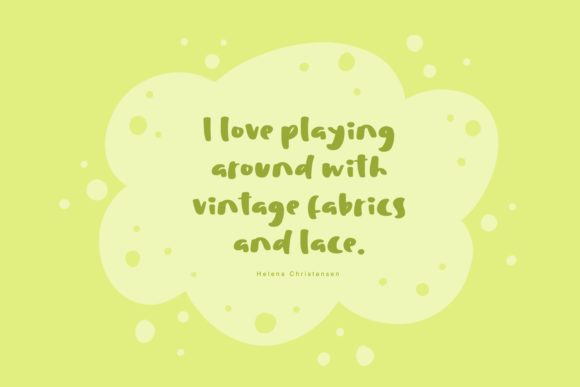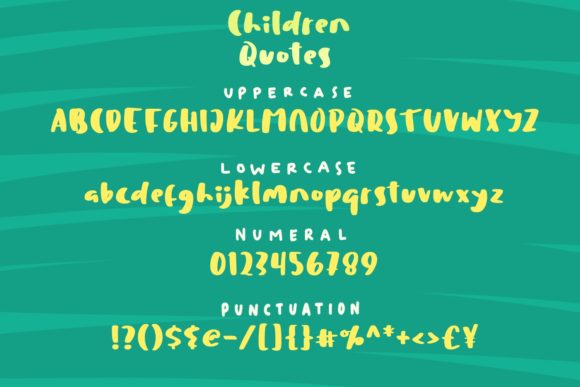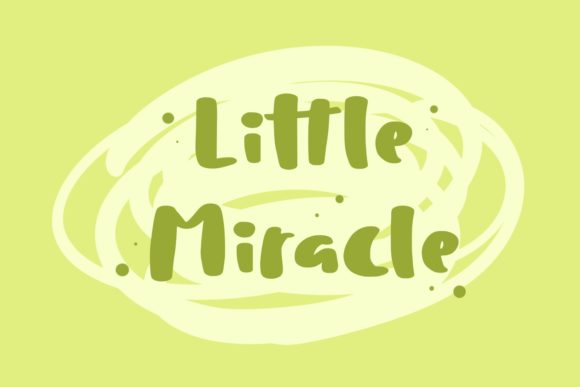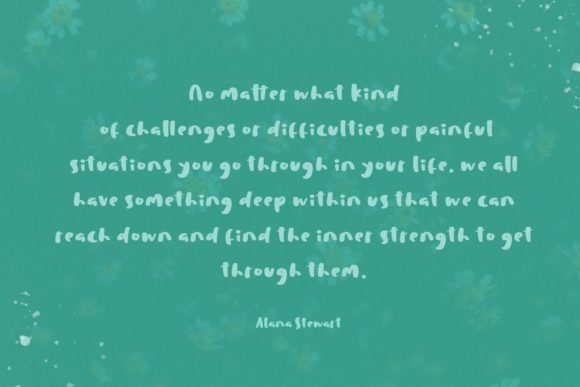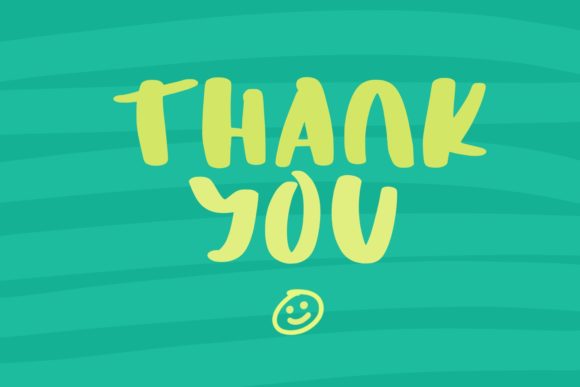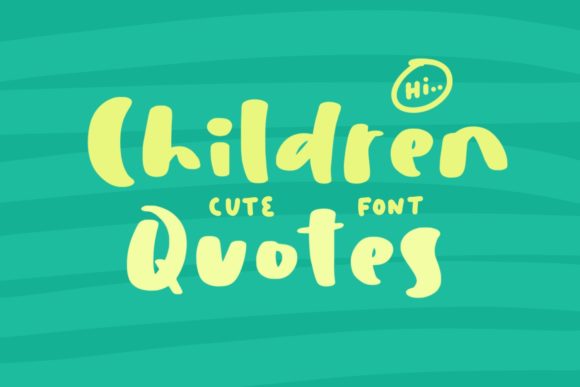
Introducing Children Quotes Font: The Perfect Addition to Your Kids’ Projects
Are you a designer, crafter, or parent looking for a font that captures the essence of childhood? Look no further than the Children Quotes Font! This bold and cute handwritten font is designed to bring a touch of childlike playfulness to any project, making it perfect for kids and school projects.
What is Children Quotes Font?
Children Quotes Font is a unique and charming handwritten font that is sure to delight kids and adults alike. Its bold and playful design makes it perfect for a variety of projects, from school assignments and crafts to posters and presentations.
Key Features of Children Quotes Font
- Bold and Cute Design: The Children Quotes Font features a bold and cute design that is sure to grab attention.
- Handwritten Style: The font’s handwritten style gives it a personal and playful touch.
- Childlike Playfulness: The font’s childlike playfulness makes it perfect for kids and school projects.
- Easy to Read: Despite its playful design, the font is easy to read, making it perfect for projects that require a clear and concise message.
Uses of Children Quotes Font
The Children Quotes Font is versatile and can be used for a variety of projects, including:
- Kids’ School Projects: The font is perfect for school projects, such as posters, presentations, and reports.
- Crafts and DIY Projects: The font can be used for a variety of craft and DIY projects, such as making cards, gift tags, and other handmade items.
- Posters and Flyers: The font’s bold design makes it perfect for creating eye-catching posters and flyers.
- Digital Projects: The font can be used for digital projects, such as creating social media graphics, blog posts, and website content.
Benefits of Using Children Quotes Font
Using the Children Quotes Font can have several benefits, including:
- Adds a Personal Touch: The font’s handwritten style adds a personal touch to any project.
- Makes Projects More Engaging: The font’s playful design makes projects more engaging and fun to work on.
- Versatile: The font can be used for a variety of projects, making it a great addition to any design or crafting toolkit.
Tips for Using Children Quotes Font
Here are some tips for using the Children Quotes Font:
- Use it for Headings: The font’s bold design makes it perfect for headings and titles.
- Mix it with Other Fonts: The font can be paired with other fonts to create a unique and interesting design.
- Experiment with Colors: The font can be used with a variety of colors to create a fun and playful design.
- Have Fun: The most important thing is to have fun and be creative with the font!
The Children Quotes Font is a unique and charming font that is perfect for kids and school projects. Its bold and cute design makes it a great addition to any design or crafting toolkit. With its childlike playfulness and easy-to-read design, it’s sure to bring a touch of fun and creativity to any project. So why not give it a try and see what amazing projects you can create?